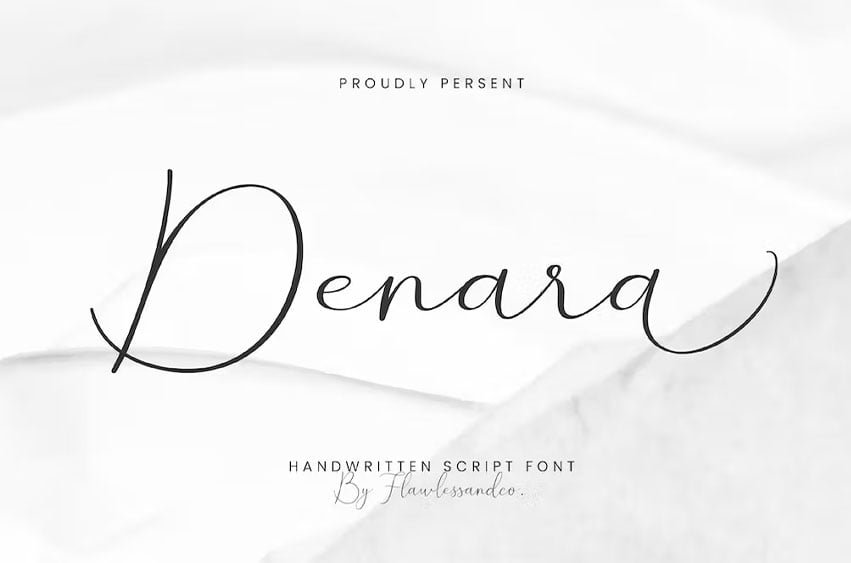
our latest creation, a modern serif with various alternates and ligatures, multilingual support, and an updated blend of bohemian style, suitable for branding, business, logos, magazines, and others
Multilingual Uppercase alphabet A-Z Lowercase alphabet a-z Alternate Character Numbers 0-9 Some punctuation